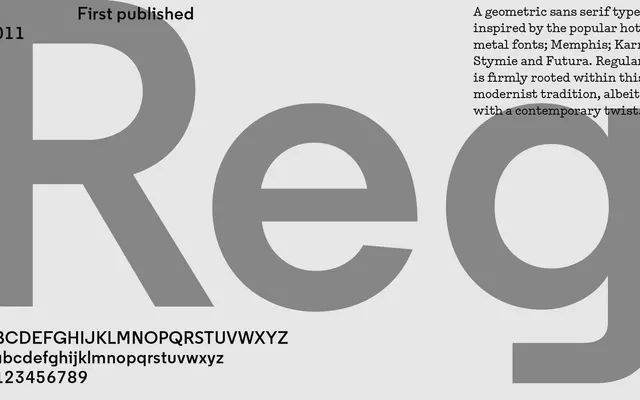
Regular specimen from A2-Type
A geometric sans rooted in hot metal modernism, drawing on Memphis, Karnak, Stymie and Futura, with a sprawling family of subfamilies covering soft, slab, mono and inline variants.
Inspired by the canonical hot metal geometrics of the twentieth century, the family extends well beyond a standard type system into distinct subfamilies including Regular XL for small sizes and screen use, Regular Soft for a warmer feel, Regular Mono for a default-adjacent aesthetic, a slab variant and an inline cut. Seven weights run from Light to Black, each with a matching italic, giving the core family 14 styles. The breadth of the system makes it unusually adaptable across print and digital contexts.
Explicitly described as a geometric sans serif inspired by hot metal geometric classics Memphis, Karnak, Stymie and Futura, placing it squarely in the geometric sans tradition with a modernist lineage.